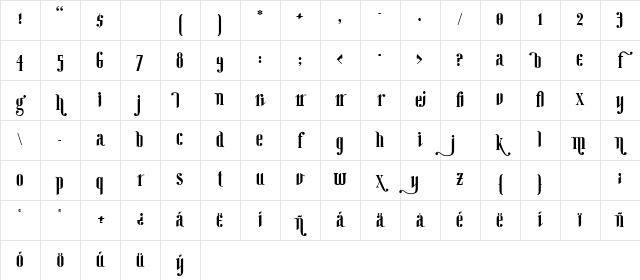
Complete Ginebra Bolds Regular glyph index. Displaying only characters natively supported by Ginebra Bolds Regular font.
Ginebra Bolds is a composed and adaptable typeface that performs quietly and consistently across a wide range of design contexts. Its bold stroke weight gives it real presence on the page.